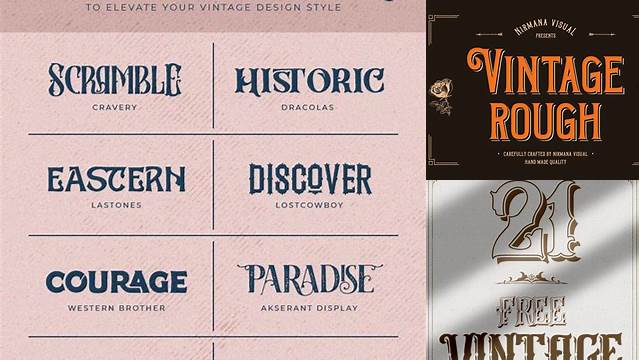
Free Vintage Fonts For Commercial Use: Your Best Picks
Hey guys! Looking to add a touch of retro charm to your designs? You've come to the right place! Finding the perfect free vintage font for commercial use can be a game-changer for your projects, whether you're working on branding, websites, or print materials. But with so many options out there, where do you even start? Don't worry, we've got you covered. This guide will walk you through the world of vintage fonts, helping you find the perfect fit for your needs. We’ll explore a wide range of styles, licensing considerations, and tips for using these fonts effectively. So, buckle up and get ready to discover some fantastic typographic treasures! Remember, choosing the right font can make all the difference in conveying your message and creating a lasting impression.
1. Understanding Vintage Font Styles
Before diving into specific fonts, let's talk styles. When we say "vintage," what exactly are we referring to? The vintage aesthetic encompasses a broad range of eras and design movements, each with its distinct typographic characteristics. You might be thinking of the elegant Art Deco fonts of the 1920s and 30s, or the bold, playful styles of the mid-century modern era. Perhaps you're drawn to the rustic, hand-drawn feel of Victorian-era lettering, or the groovy, psychedelic fonts of the 1960s and 70s. Each of these styles evokes a different mood and feeling, so understanding the nuances of each is crucial for selecting the right free vintage font for commercial use. Think about the overall tone you want to convey in your design. Is it sophisticated and classic? Fun and quirky? Rugged and timeless? The answer to this question will help you narrow down your choices and find a font that truly resonates with your vision. Remember, the font you choose is a key element of your brand identity, so it's worth taking the time to explore different options and find the perfect match.
2. Top 10 Free Vintage Serif Fonts for Commercial Projects
Serif fonts, with their characteristic strokes or "feet" at the ends of letters, often evoke a sense of tradition, elegance, and authority. They're a fantastic choice for projects that need a touch of sophistication or a connection to the past. Luckily, there are some amazing free vintage font for commercial use options in the serif category. Imagine using a classic serif font for a logo that needs to convey trustworthiness and stability, or for body text in a book that aims for a timeless feel. When selecting a serif font, consider the weight (how thick the strokes are), the contrast (the difference between thick and thin strokes), and the overall letterforms. A font with high contrast can feel more formal and elegant, while a font with low contrast might be better suited for longer blocks of text. Don't be afraid to experiment with different serif styles to see which one best captures the essence of your project. Remember, the right serif font can add a touch of class and history to any design. This section will highlight ten of the best free vintage serif fonts available for commercial use, complete with examples and tips for using them effectively.
3. 10 Free Vintage Sans-Serif Fonts for Commercial Use
Sans-serif fonts, which lack the serifs found in their counterparts, are often associated with modernity, simplicity, and clarity. They became particularly popular in the mid-20th century and continue to be a staple of contemporary design. However, many free vintage font for commercial use options exist within the sans-serif category as well, offering a range of styles from sleek and geometric to bold and industrial. Think about the clean lines and minimalist aesthetic of mid-century modern design, or the strong, confident letterforms used in vintage advertising. Sans-serif fonts can be incredibly versatile, working well for headlines, body text, and even logos. When choosing a sans-serif font, consider the overall form of the letters, the spacing between them, and the font's weight. A lighter weight font might feel more delicate and airy, while a heavier weight font can convey strength and impact. This section will explore ten excellent free vintage sans-serif fonts that you can use in your commercial projects, providing insights into their unique characteristics and ideal applications. These fonts can add a touch of retro cool to your designs, while maintaining a modern sensibility.
4. Free Vintage Script Fonts for Commercial Designs
Script fonts, inspired by handwriting, bring a touch of personality and elegance to any design. They can range from delicate and flowing to bold and dramatic, making them a versatile choice for a variety of projects. When searching for a free vintage font for commercial use, script fonts are a treasure trove of options. Imagine a vintage-inspired wedding invitation with a beautifully flowing script font, or a logo for a boutique with a touch of handwritten charm. The key to using script fonts effectively is to use them sparingly, often for headlines or short phrases, as they can be less legible in large blocks of text. Consider the overall tone you want to convey. A delicate, flowing script can feel romantic and elegant, while a bolder, more angular script might be better suited for a project with a more edgy or vintage feel. This section will highlight some of the best free vintage script fonts available for commercial use, offering tips on how to incorporate them into your designs. Remember, a well-chosen script font can add a touch of artistry and sophistication to your work.
7. Best Websites to Download Free Vintage Fonts
Okay, so where do you actually find these free vintage fonts for commercial use? The internet is a vast resource, but not all websites are created equal. Some sites might offer fonts with misleading licenses, while others might have low-quality fonts or even contain malware. That's why it's essential to stick to reputable sources. This section will highlight some of the best websites for downloading free vintage fonts, ensuring you get high-quality fonts with clear licensing terms. We'll cover sites like Font Squirrel, Google Fonts, and various independent foundries that offer free fonts. Each of these sites has its own strengths. Font Squirrel is known for its excellent selection of commercial-use-friendly fonts, Google Fonts offers a massive library of web-optimized fonts, and independent foundries often provide unique and handcrafted fonts. We'll also share some tips for navigating these websites, such as using filters to narrow your search and paying attention to user reviews. By using these trusted sources, you can build a fantastic font library without spending a dime.